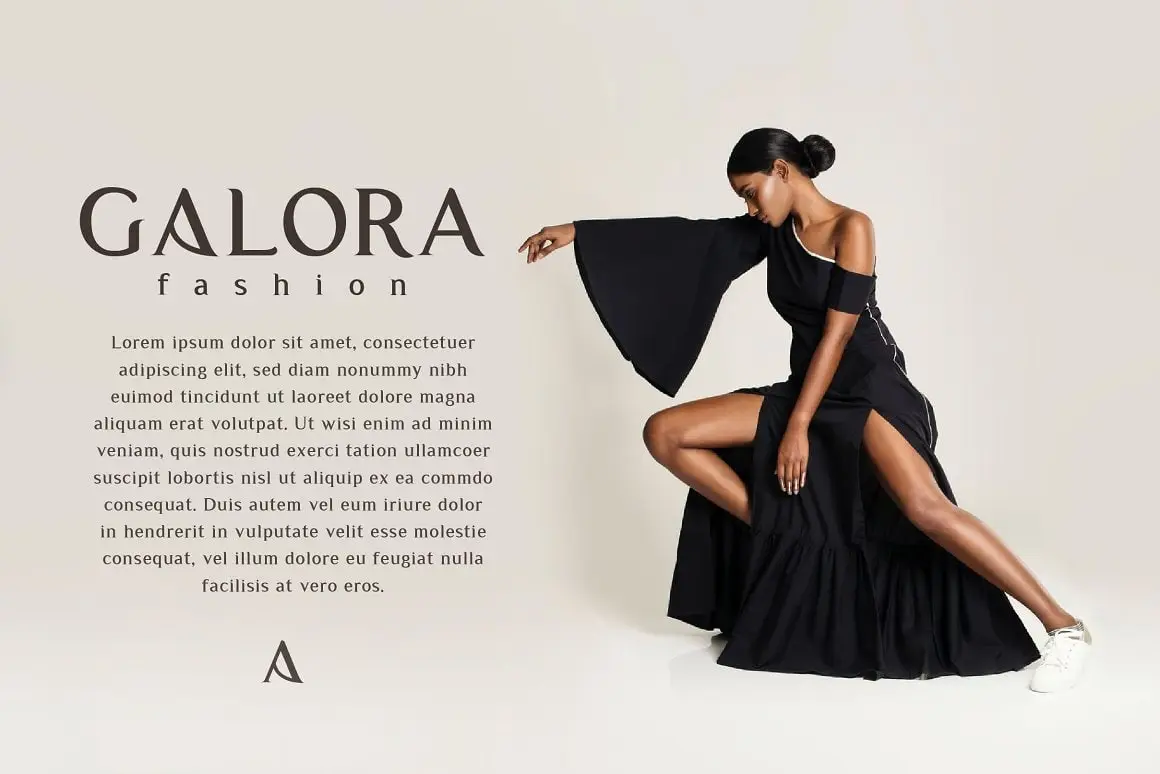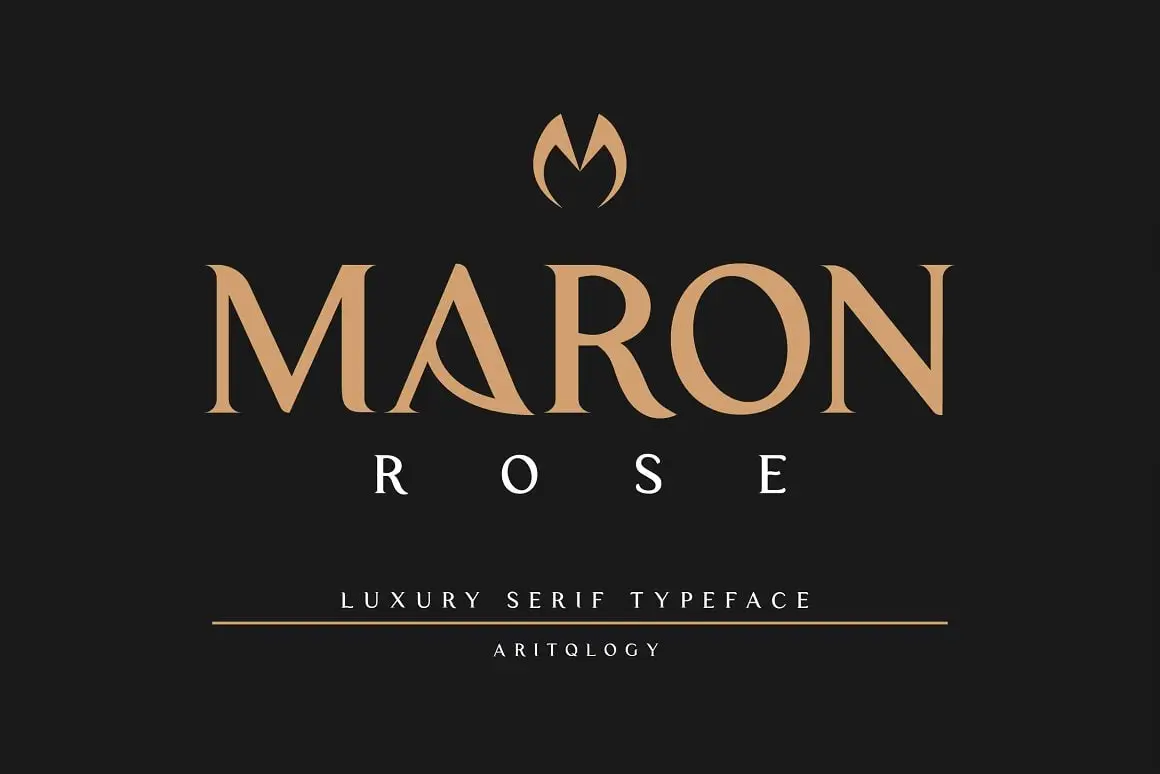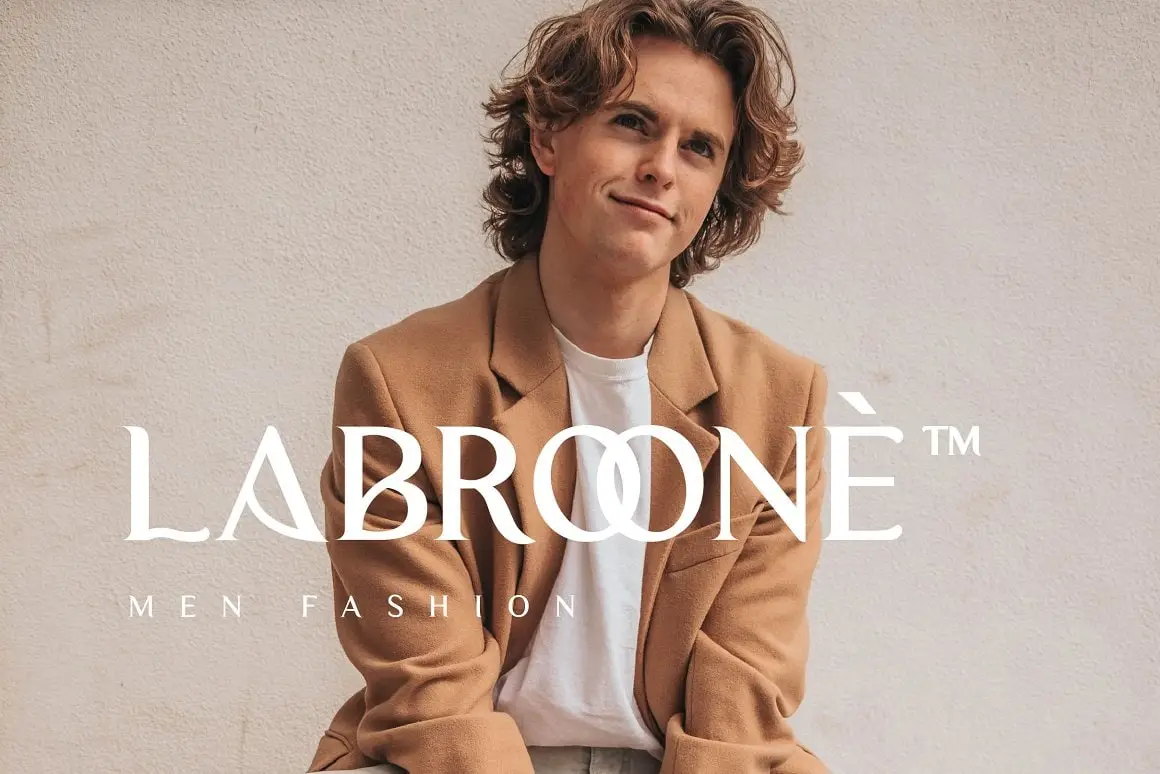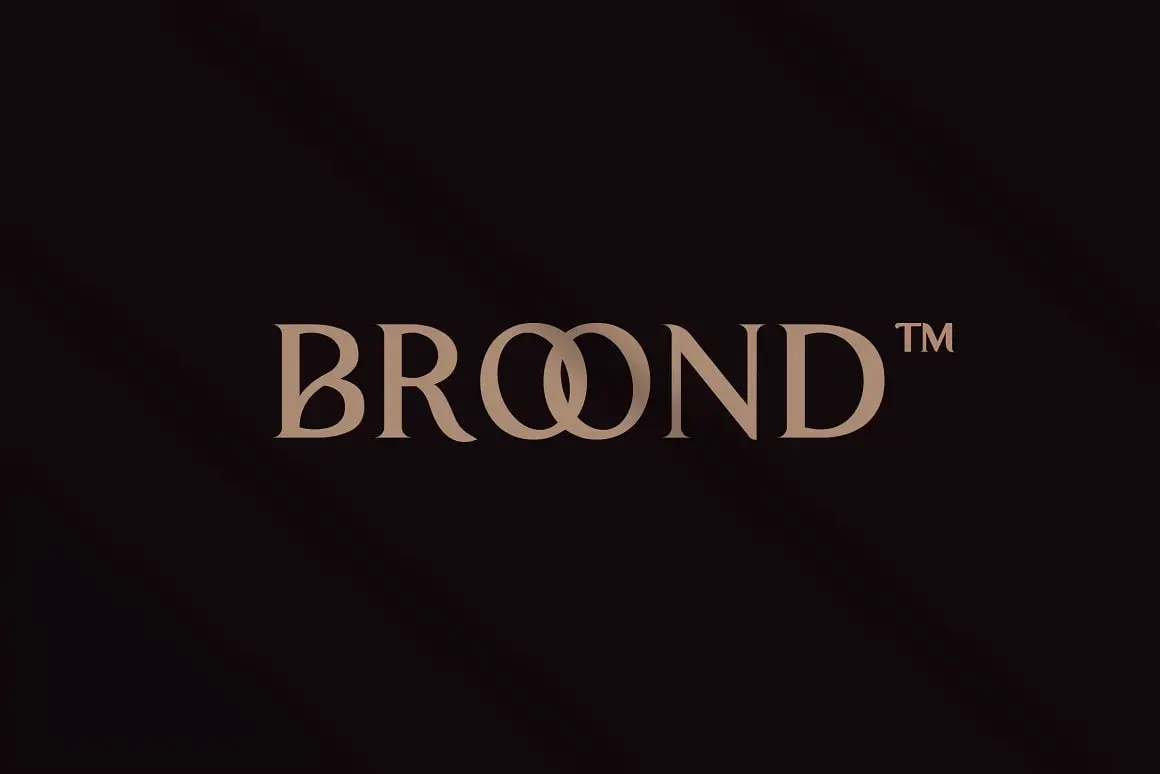
Maron Rose-Luxury Serif Typeface
The Maron Rose Luxury Serif Typeface is a sophisticated font designed to elevate your design projects with its elegant and timeless appeal. This typeface features a classic serif style that is perfect for a variety of applications, including branding, logos, print materials, and web design.
• Stylish serif design with luxurious aesthetics
• Multiple weights for versatile usage
• Uppercase and lowercase letters, numerals, and punctuation
• Well-crafted ligatures for seamless text flow
• Ideal for luxury branding and high-end product presentations
• Use in editorial layouts for a sophisticated look
• Perfect for invitations, posters, and other printed materials